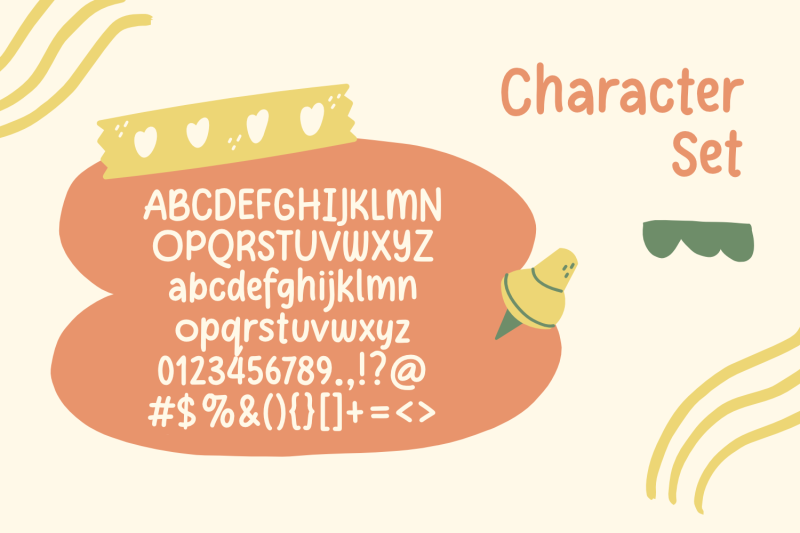
Freebie Wednesday: Featly Note Font.
Featly Note Font!
Featly Note is a handwritten bullet journal font! This font is perfect for school projects, SVG designs, stickers, home decorations, quotes, headings, blogs, logos, invitations, and more! Comes in OTF and TTF formats!